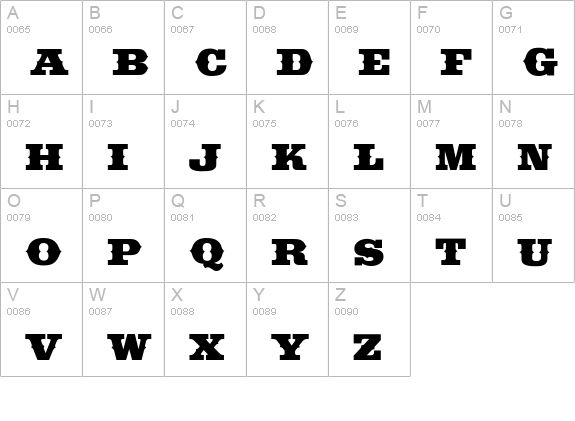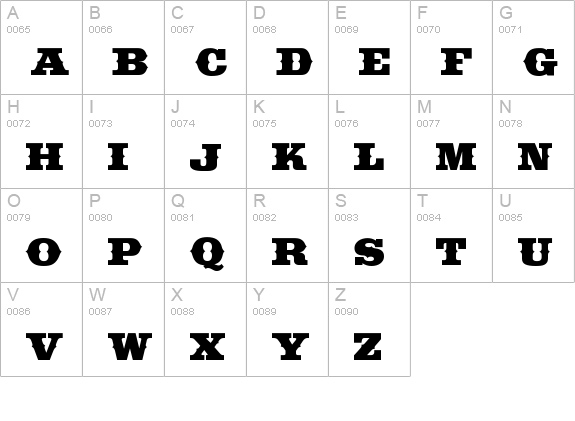
CgDavisonAmericana Font Details
CgDavisonAmericana is a versatile and classic font that exudes a sense of timeless elegance and sophistication. With its bold and clean lines, this font is perfect for a wide range of design projects, from branding to editorial design. The balanced proportions and sharp serifs give CgDavisonAmericana a sense of authority and professionalism, making it an excellent choice for conveying a sense of tradition and reliability. What's even better is that CgDavisonAmericana is available for free download at FontsMarket.com. This means that you can easily access this high-quality font for your projects without any cost. Whether you're working on a personal project or a client's design, CgDavisonAmericana is a fantastic choice that will elevate your work to the next level. Download it now and add a touch of timeless charm to your designs.